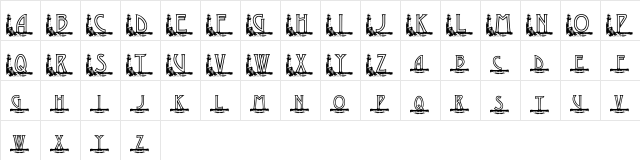
KG GAYLES LH Regular
Design Context for KG GAYLES LH Typeface
KG GAYLES LH is a composed and adaptable typeface that performs quietly and consistently across a wide range of design contexts.